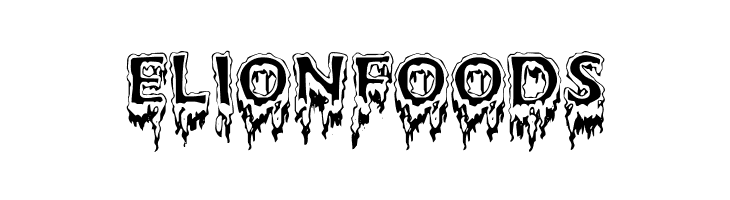
A bold, dripping font ideal for horror-themed designs.
A bold, dripping font with a playful and edgy aesthetic.
A bold, distressed font with a dripping, chaotic style.
A bold, jagged font with a horror-inspired, distressed style.
A playful, bold font with a dripping, textured appearance.
A dripping, liquid-like font with a bold, eerie style.
A bold, dripping font with a spooky, oozing effect.
A bold, decorative font with an organic, dripping style.
A bold, distressed font with a dripping, grunge aesthetic.
A decorative font with swirling, liquid-like patterns, creating a bold and artistic effect.
A decorative font with a dripping, liquid-like appearance.
A bold, decorative font with a playful dripping effect.
A playful, bubbly font with a dripping texture and outlined characters.
A bold, organic font with a dripping, hand-drawn style.
A playful, blob-like font with an organic, hand-drawn appearance.
A bold, dripping font with a horror-inspired design.
A drippy, icy font perfect for winter or horror themes.
A playful, dripping font with bold, rounded characters ideal for creative projects.
A playful, bold font with rounded, bubble-like characters.
A bold, playful font with a fluid, liquid-like design.
A bold, dripping font with a graffiti-like, horror-inspired style.
A bold, jagged font with a dripping, eerie style perfect for horror themes.
A bold, dripping font perfect for spooky and Halloween-themed designs.
A horror-themed font with dripping, eerie characters.
A bold, dripping font perfect for spooky or horror-themed designs.
A dripping, eerie font ideal for horror themes.
A bold, dripping font perfect for horror themes.
A spooky, dripping font perfect for Halloween themes.
A spooky, dripping font ideal for Halloween themes.
A playful, slime-inspired font with dripping, organic shapes.
A playful, dripping slime font with a hand-drawn, eerie appearance.
A playful, spooky font with dripping, bold characters ideal for Halloween themes.
A bold, spooky font with a dripping effect, ideal for Halloween themes.
A spooky, dripping font perfect for Halloween-themed designs.
A spooky, dripping font ideal for Halloween themes.